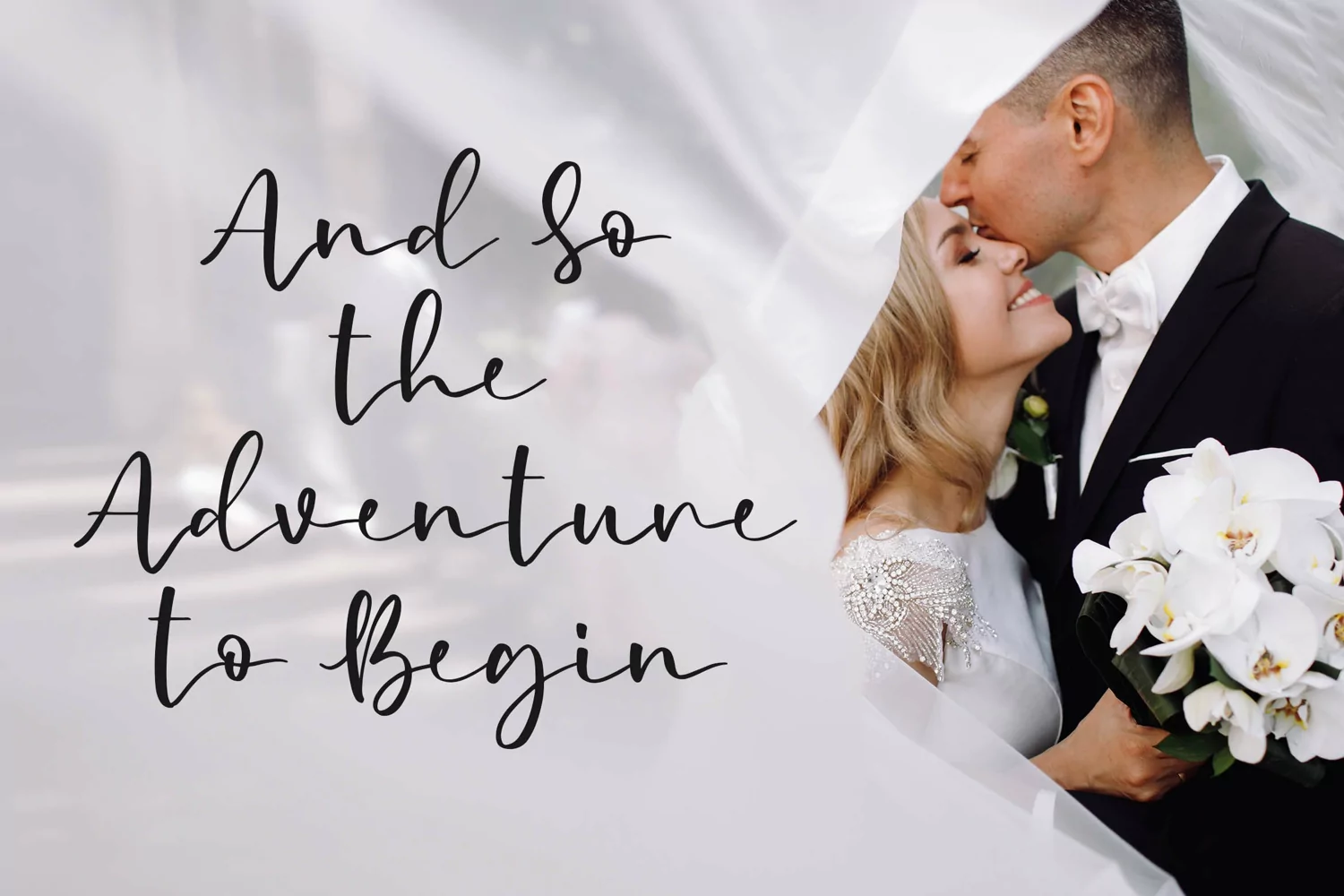
Femina - a Modern Calligraphy Font
Introducing of our new product the name is Femina a Modern Calligraphy Font. Feelista inspired by modern calligraphy style this font is a fun theme very good for display, wedding, valentine theme, logotype and etc